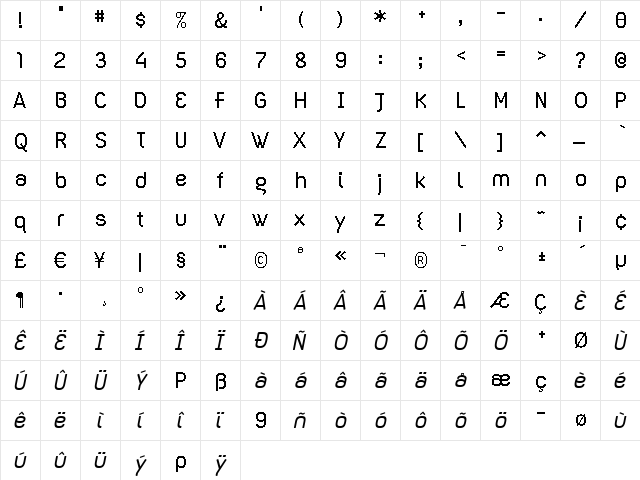
Dispose Regular Oblique
| Foundry | Lee Fasciani |
| Designer | Lee Fasciani |
Design Context for Dispose Typeface
Dispose takes a measured approach to typography — its balanced proportions and neutral character make it a reliable workhorse for both digital and print work. Its italic angle brings a sense of urgency and motion to the letterforms.